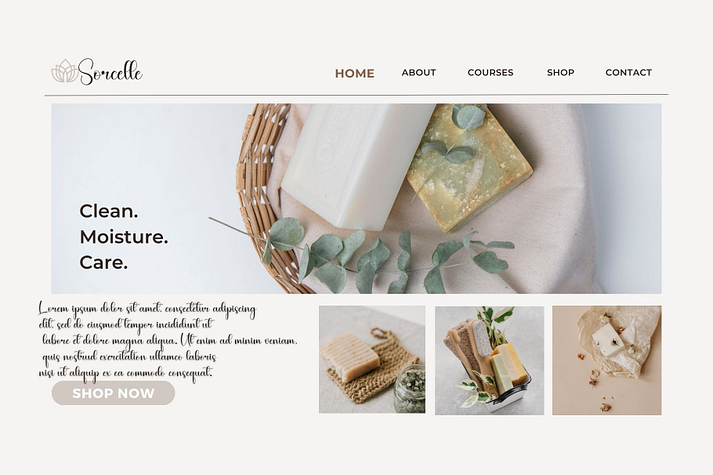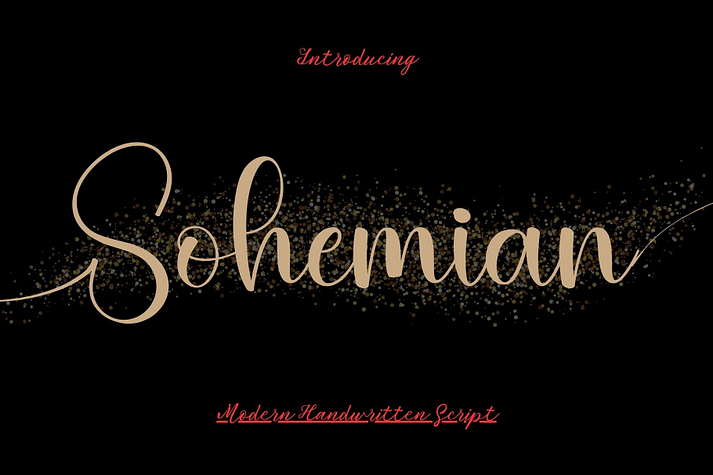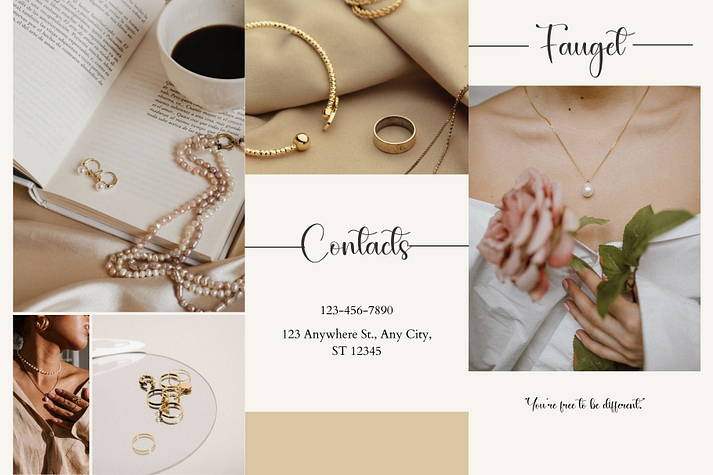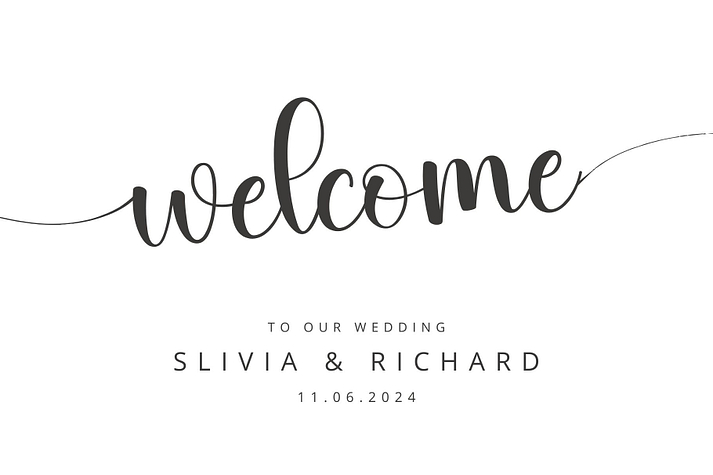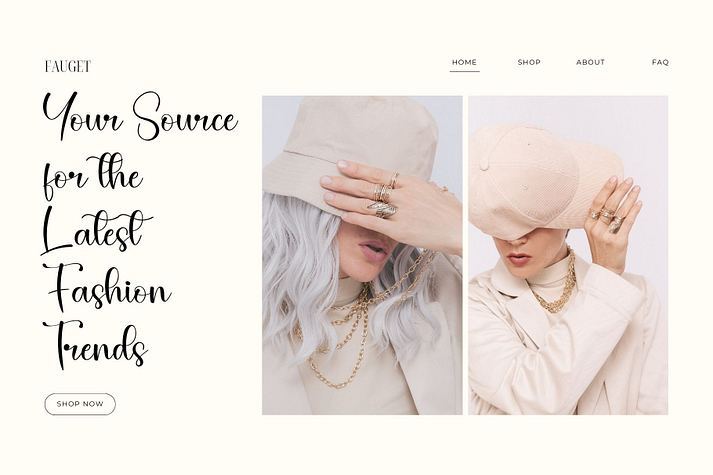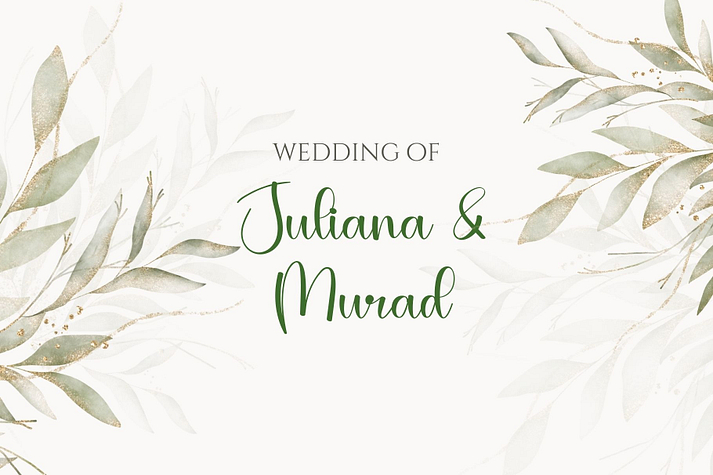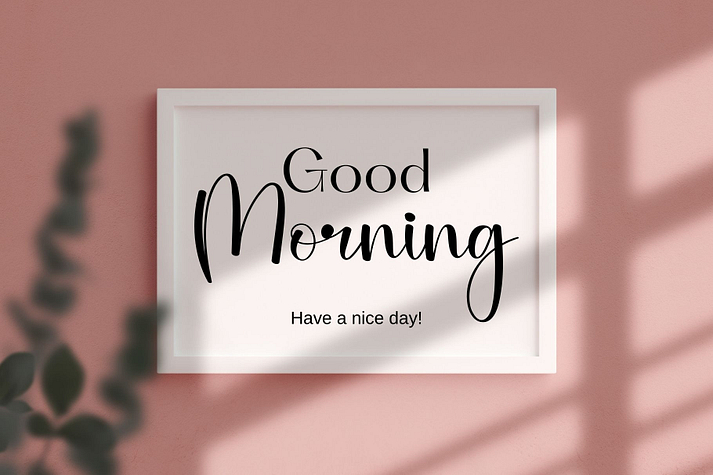
Sohemian
Sohemian is a font family published by Aditastudios.
Sohemian is a magical script font carefully created with a touch of elegance. Whether you’re looking for fonts for Instagram or calligraphy scripts for DIY projects, this font will turn any creative idea into a true piece of art!